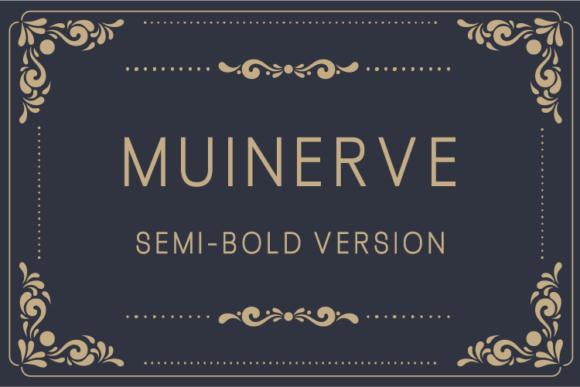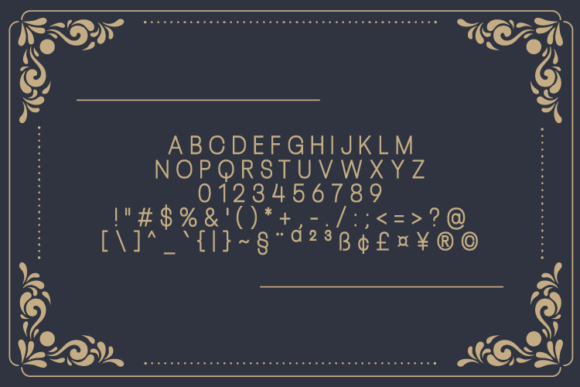
About Muinerve Semi-Bold Font
Muinerve Simplifies elegance into one truly outstanding sans serif font. It maintains its classy calligraphic influences while feeling contemporary and fresh. This versatility will appeal to a wide range of crafty ideas, from letterheads and titles, to stationery.